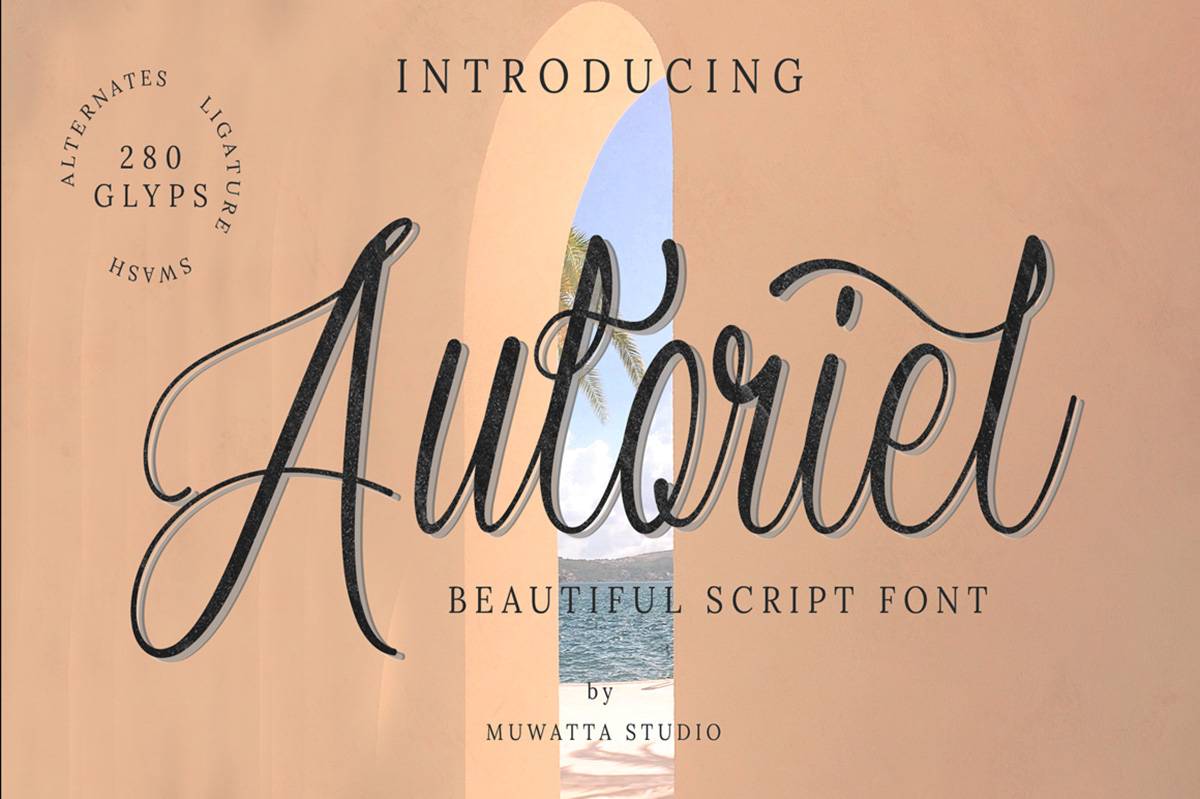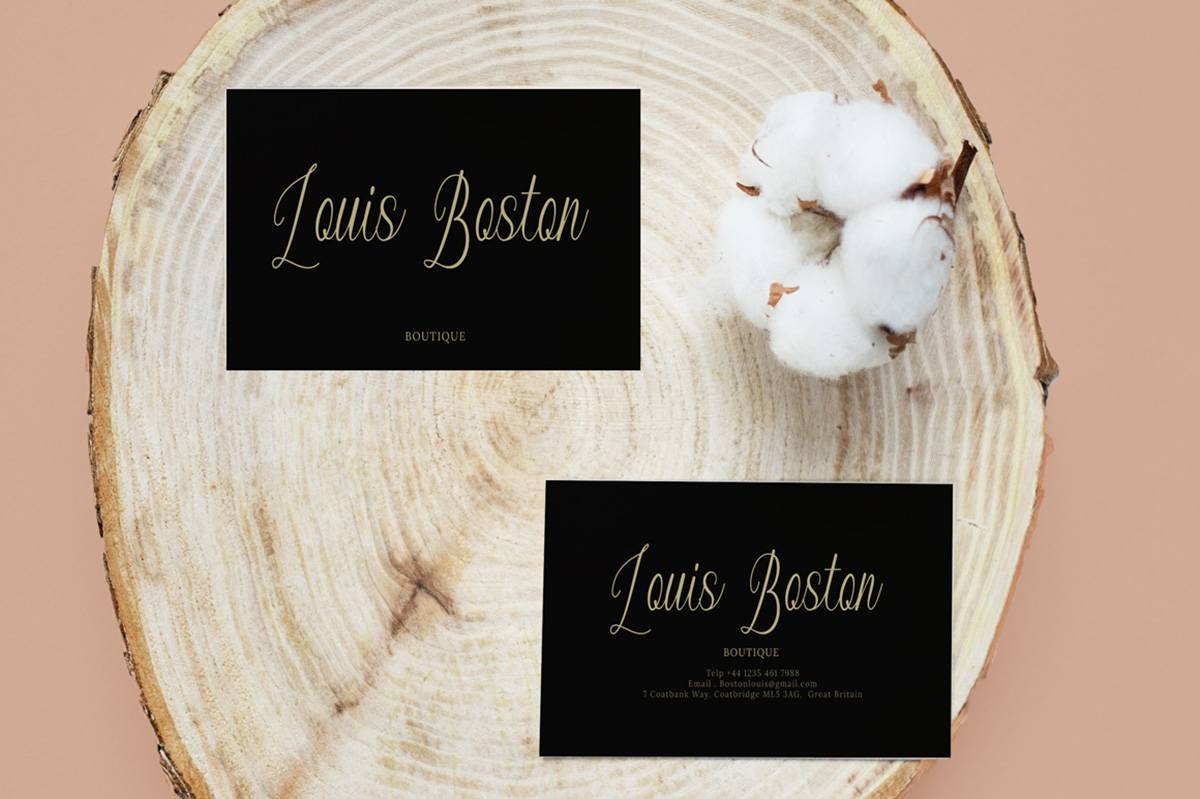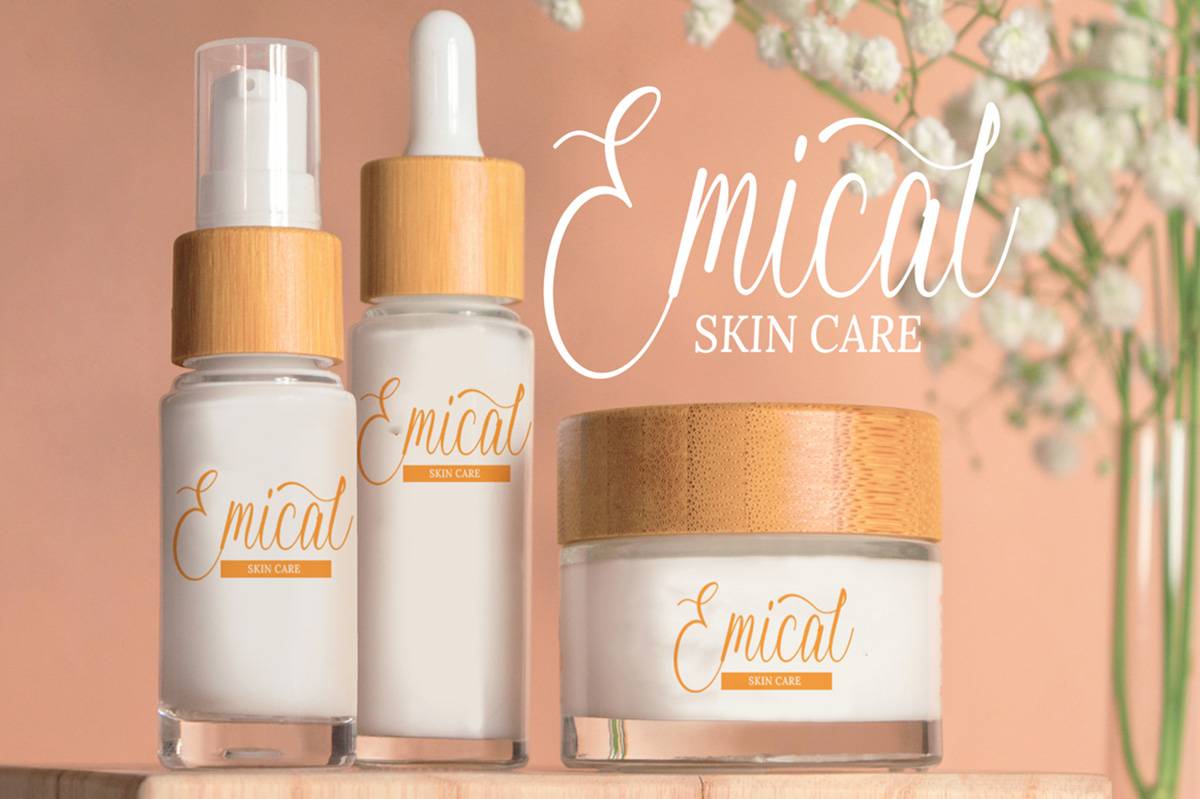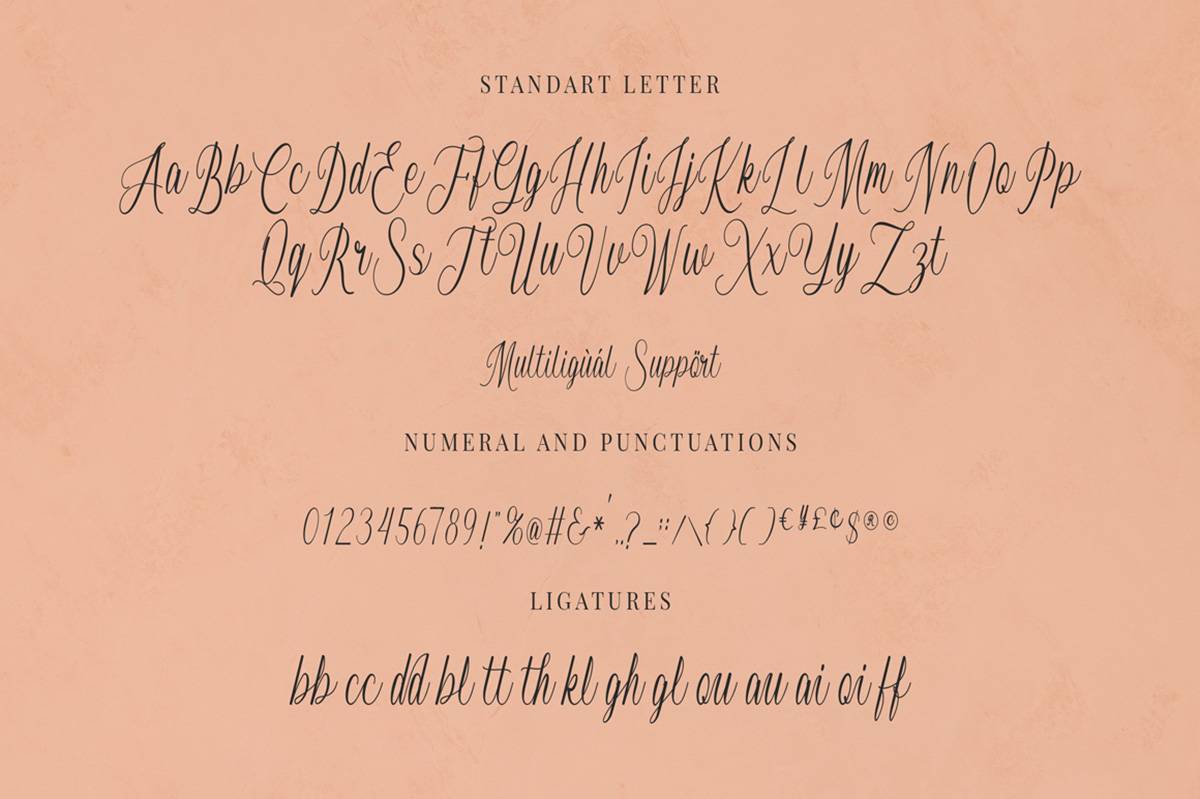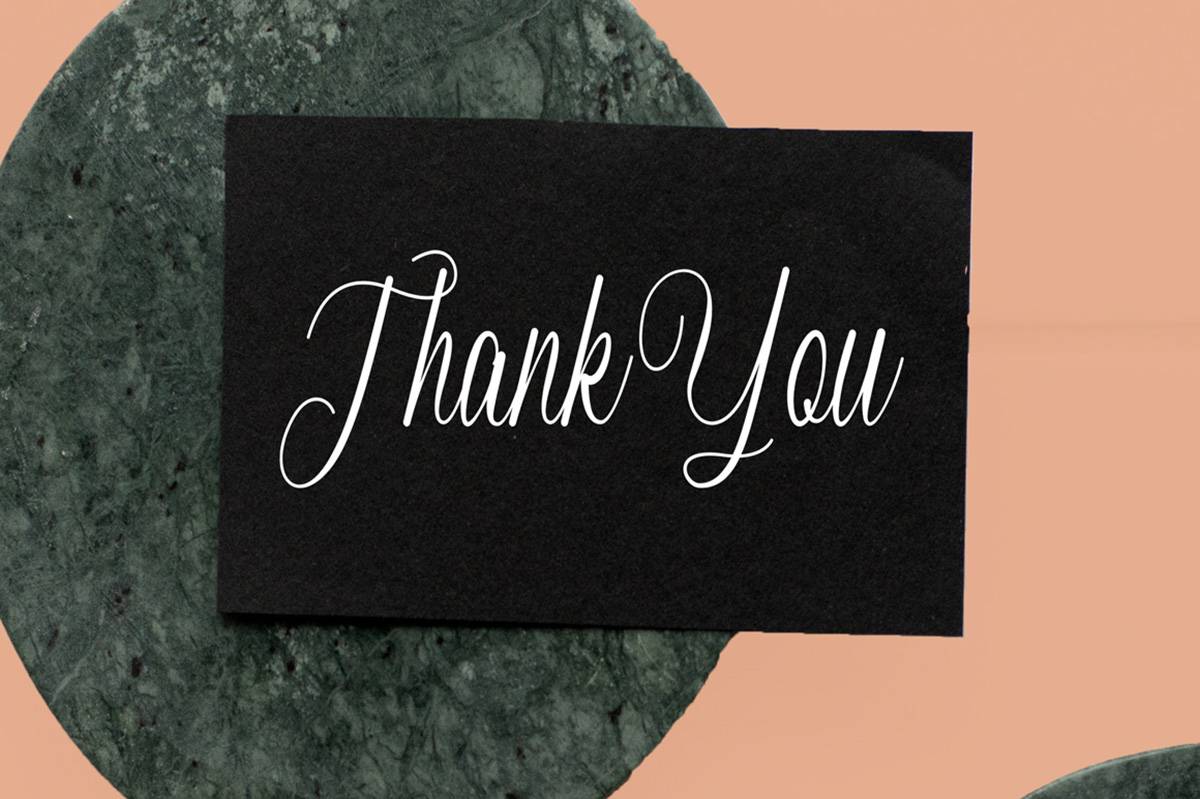
Auloriel Script is a delicate and elegant script font characterized by its thin, flowing strokes and graceful curves, giving it a refined and sophisticated feel. Its tall x-height and slender letterforms make it ideal for luxury branding, wedding invitations, and stylish editorial design where a touch of classic elegance is desired. This font works best in large sizes for headlines or decorative text, as its fine details add a sense of charm and artistry without overwhelming the viewer.
Auloriel Script Font
About Auloriel Script Font
| Font family | Auloriel Script Font |
| Release date | 2021-11-21 |
| Designer | Bayu Wibisono |
| Trademark | Muwatta Studio |